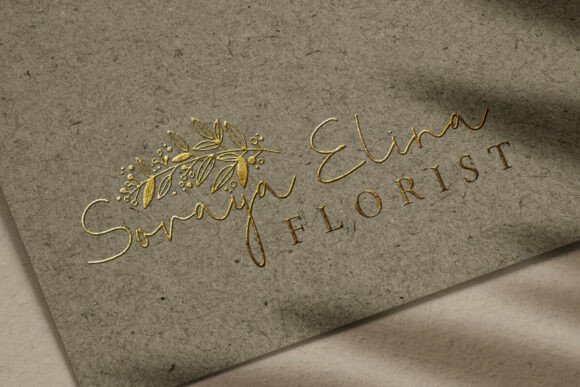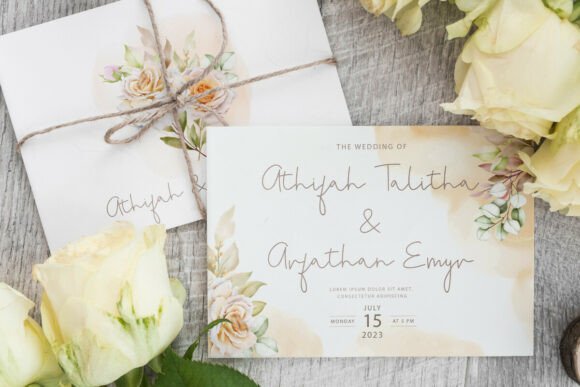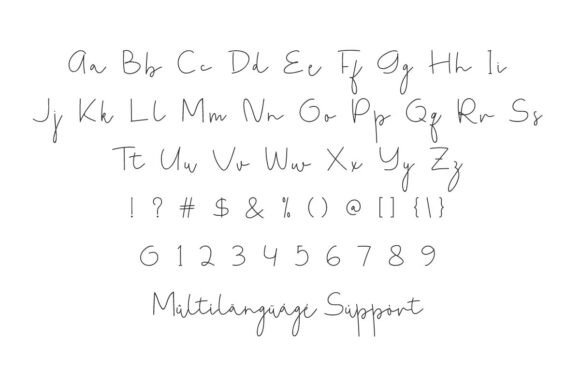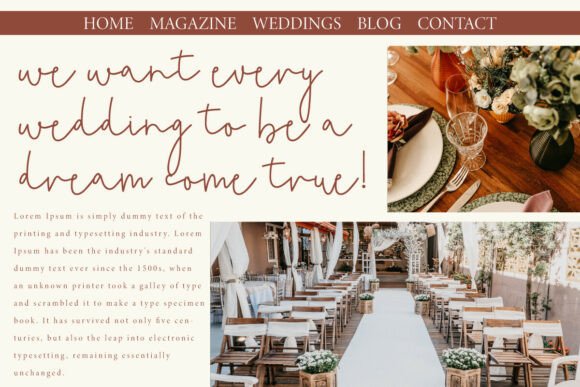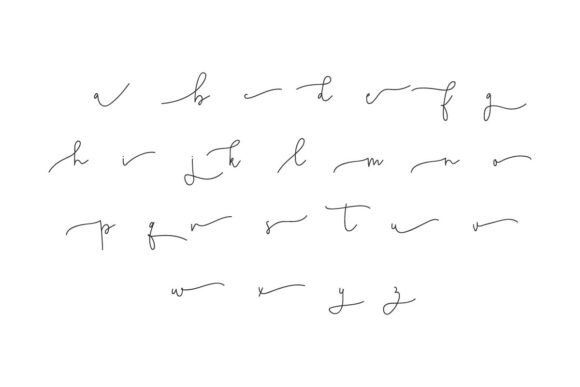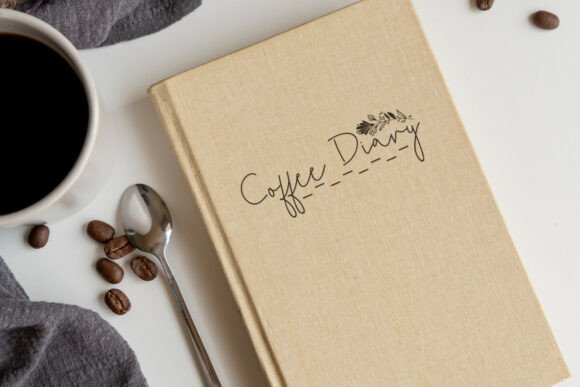
Where Words Meet Serenity
Have you ever found yourself scribbling down a heartfelt message on a card, only to pause mid-stroke and let the moment sink in? The flow of your pen glides effortlessly across the page, and your words seem to breathe life into the air. It’s in these quiet moments that the beauty of handwritten letters truly shines.
Introducing Breathe Peace Font, a delicate and flowing signature font that captures the essence of simplicity and warmth. Designed to evoke the feeling of a personal, handwritten touch, this font brings emotional depth and natural elegance to every message. Its smooth curves and hand-crafted charm make it a valuable addition to any designer’s toolkit, perfect for creatives who want their words to feel soft, stylish, and full of meaning.
With its easy-to-read design and versatility, Breathe Peace Font is a must-have for any designer looking to add a touch of serenity to their work. Whether you’re crafting a wedding invitation, a beauty product label, or a marketing brochure, this font is sure to bring a sense of peace and tranquility to your message.
- Unique Characteristics: Features a calming and soothing design aesthetic, perfect for creating peaceful and serene environments.
Breathe Peace Font Review
Overall, I was quite impressed with the Breathe Peace Font. Here are some things that worked well: ✨
- Unique and soothing aesthetic, perfect for wellness or self-care brands
- Good legibility, even at smaller font sizes
- Extensive language support, including multiple scripts and languages
- Limited customization options, which may limit its use in certain design applications
- Not as versatile as some other fonts, making it better suited for specific niches
- Some users may find the font too cursive or ornate for certain design contexts
Overall, I’d say the Breathe Peace Font is a solid choice for designers looking for a unique and soothing font for wellness or self-care brands. While it may have some limitations, its strengths make it a great option for businesses that want to stand out in a crowded market.
To get the most out of the Breathe Peace Font, use it for:
- Invitations and event graphics
- Wedding stationery and decor
- Health and wellness branding
The Breathe Peace Font is perfect for any design project that requires a soothing and calming atmosphere. Use it for:
- Yoga and meditation branding